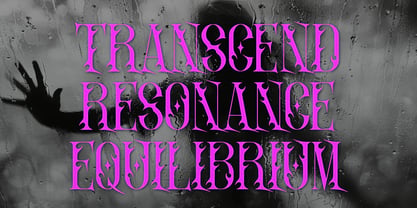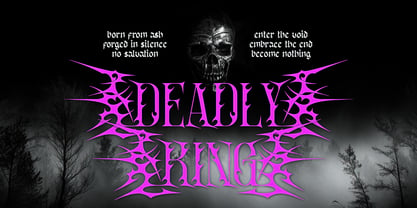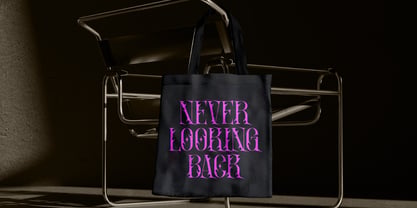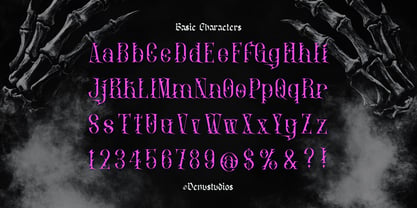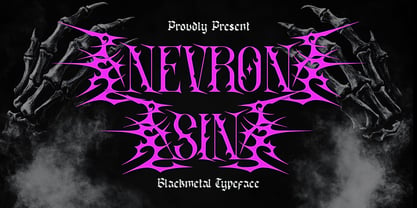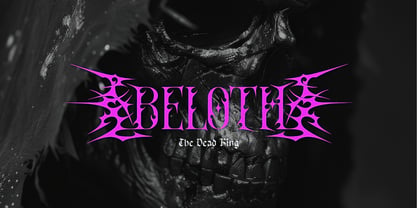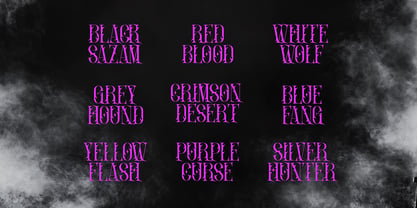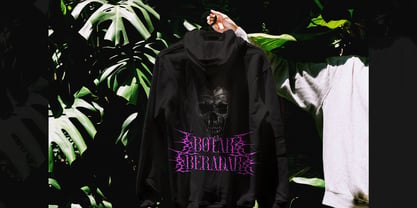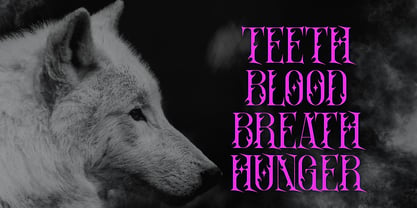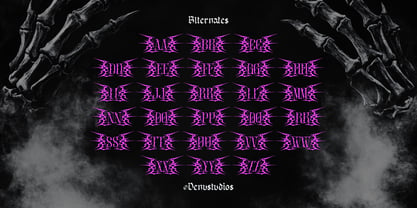
Nevron Sin
by Denustudio
The Nevron Sin Font Family was designed by Dede Nugraha and published by Denustudio. Nevron Sin contains 1 styles. More about this family
Nevron Sin | Black Metal Typeface, from Denustudios, suitable for any projects such as: logos, branding projects, homeware designs, product packaging, mugs, quotes, posters, shopping bags, t-shirts, book covers, name card, invitation cards, greeting cards, label, photography, watermark, special events, and all your other lovely projects that need Black Metal a taste.
Designers: Dede Nugraha
Foundry: Denustudio